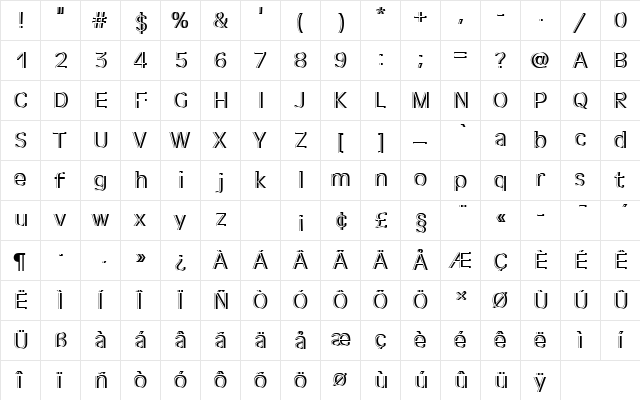
AntiqueOliTLigRe1 Regular Font Preview
AntiqueOliTLigRe1 Regular
Design Context for AntiqueOliTLigRe1 Typeface
AntiqueOliTLigRe1 wears its vintage influences proudly, with letterforms that recall mid-century signage, classic packaging, and nostalgia-driven design.
Perfect for vintage-inspired branding, retro packaging, nostalgia campaigns, and period-accurate editorial design.
Font Pairing: Combine AntiqueOliTLigRe1 with a simple slab or neutral sans — period-accurate companions reinforce the vintage feel without competing for attention.
Pro Tip: Use AntiqueOliTLigRe1 for headlines and pull quotes rather than body copy — its personality is best appreciated in short, focused bursts.